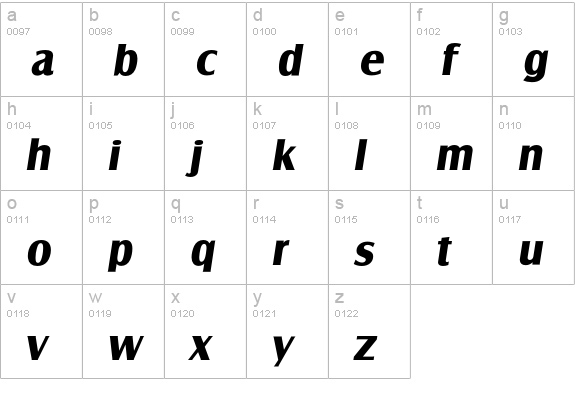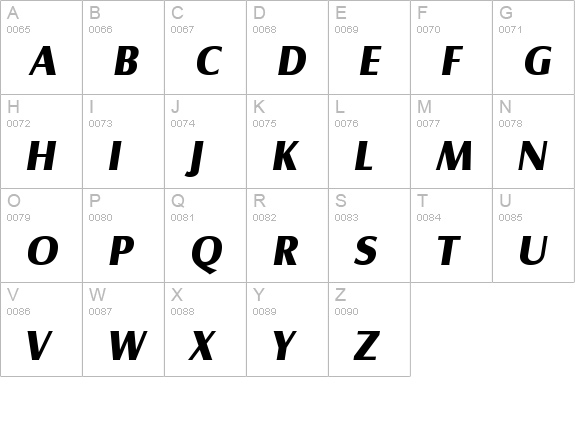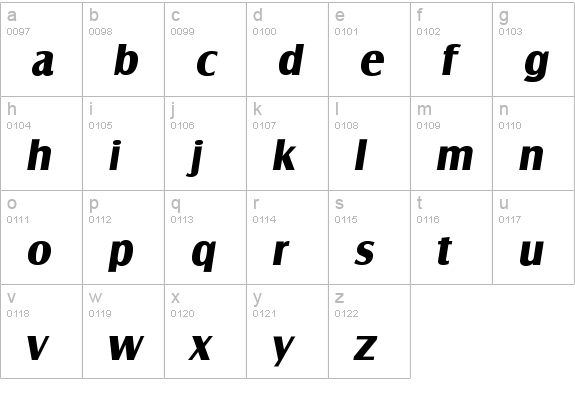
Salzburg-BoldIta Font Details
Salzburg-BoldIta is a stunning and versatile font that combines elegance with a touch of boldness. Its unique design captures attention and adds a touch of sophistication to any project. The strong, slanted italic style gives this font an edgy and modern feel, making it perfect for a wide range of applications. This font is not only visually appealing but also highly legible, making it suitable for both display and body text. The bold strokes and distinctive letterforms make a statement, while still maintaining clarity and readability at any size. One of the best things about Salzburg-BoldIta is that it is freely available to download at FontsMarket.com. This means that you can easily access and use this font for personal and commercial projects without any restrictions. Whether you're designing a logo, creating branding materials, or crafting a stunning website, this font will add a professional and stylish touch to your work. Salzburg-BoldIta is designed with precision and attention to detail, ensuring that every character is well-crafted and balanced. The font includes a full set of uppercase and lowercase letters, numbers, punctuation marks, and special characters, providing you with all the tools you need to bring your creative visions to life. In addition to its aesthetic appeal, Salzburg-BoldIta is also highly versatile. It can be used in a variety of contexts, from fashion and beauty to tech and corporate designs. Its versatility ensures that it will seamlessly integrate into any project, enhancing the overall visual impact. With its combination of elegance, boldness, and legibility, Salzburg-BoldIta is a font that will elevate your designs and captivate your audience. Download it for free at FontsMarket.com and unlock a world of creative possibilities.